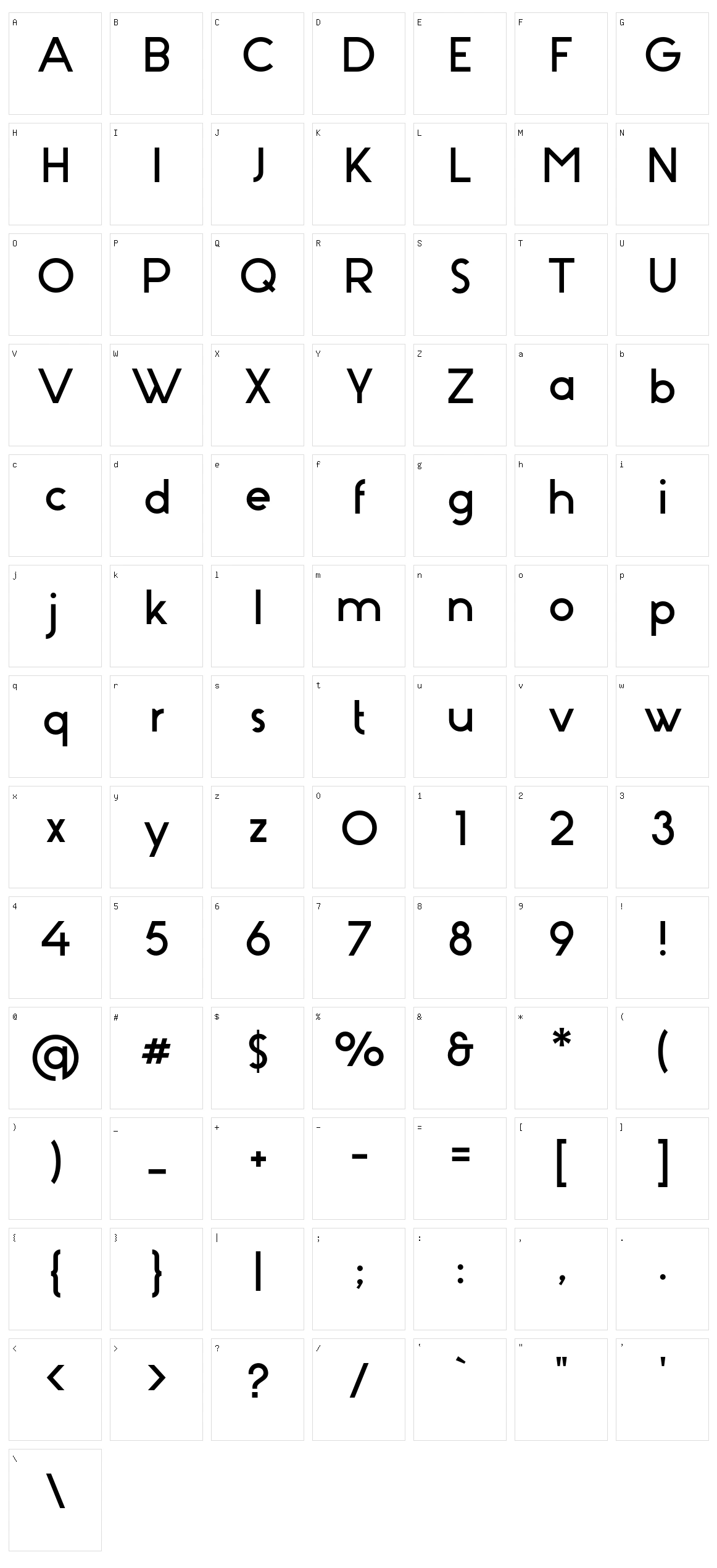
Stark Font
* This font has support for more than 40 languages of the Latin alphabet + Cyrilic; It comes with OpenType Features that you can use in programs like Photoshop, Illustrator, InDesign and many others...